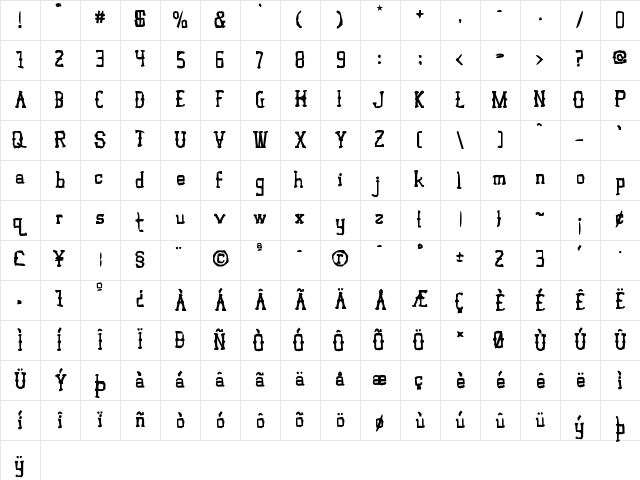
Vloderstone Antique Regular
Design Context for Vloderstone Antique Typeface
Vloderstone Antique wears its vintage influences proudly, with letterforms that recall mid-century signage, classic packaging, and nostalgia-driven design.
Font Pairing: Combine Vloderstone Antique with a simple slab or neutral sans — period-accurate companions reinforce the vintage feel without competing for attention.
Pro Tip: Use Vloderstone Antique for headlines and pull quotes rather than body copy — its personality is best appreciated in short, focused bursts.